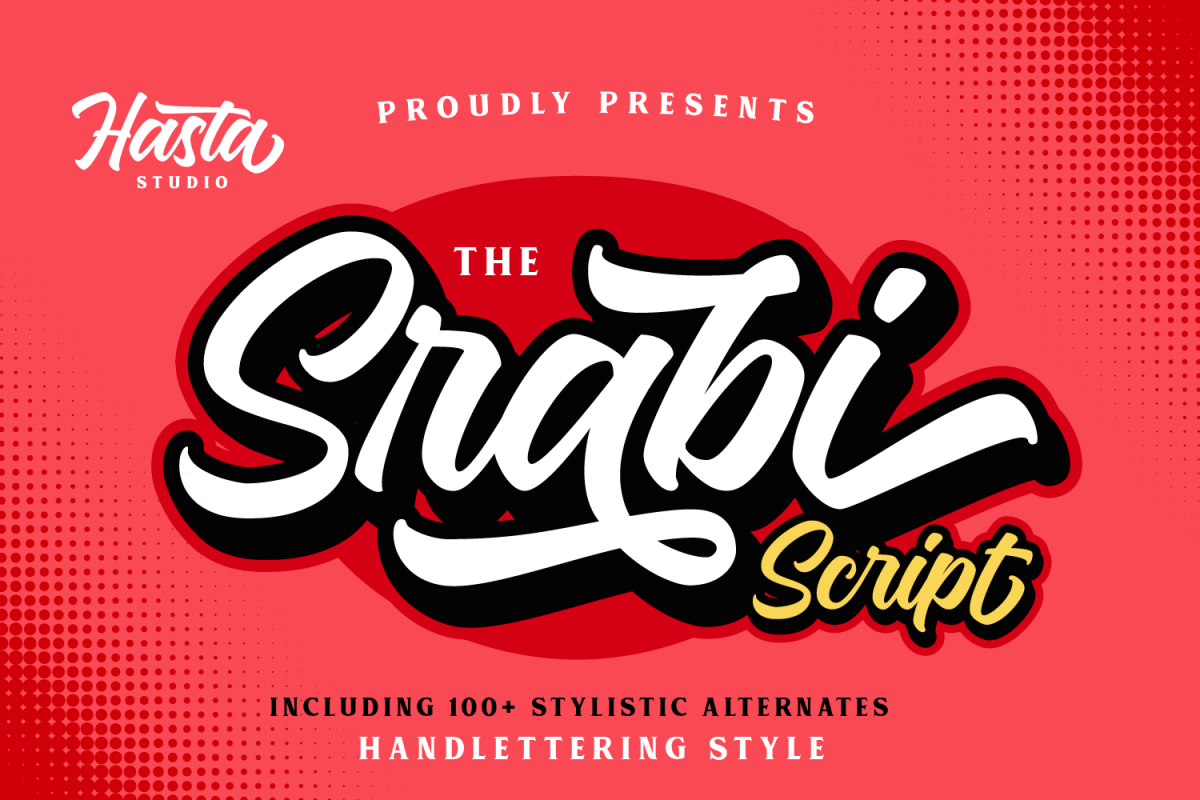
Srabi Script
is Inspired by Vintage style and combined with Hand Lettering style. Every single curve has my personality touch since I use my manual handlettering brush. It is great for making logotype, branding, promotional ads, quotes design, packaging, t-shirt design. merchandise, poster, merchandise, social media and much more.  Coming up with more than 100 stylistic alternates and ligatures you can make so many alternative choices based in your creativity.